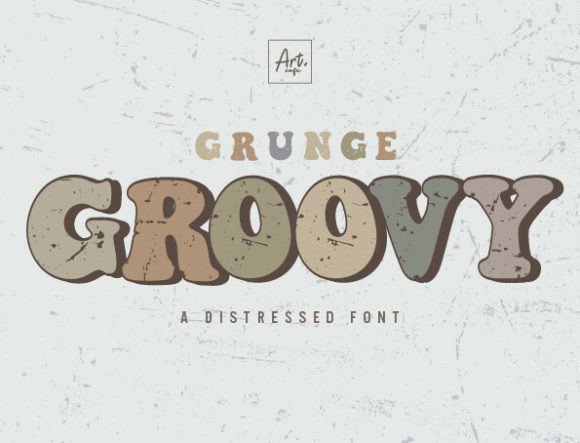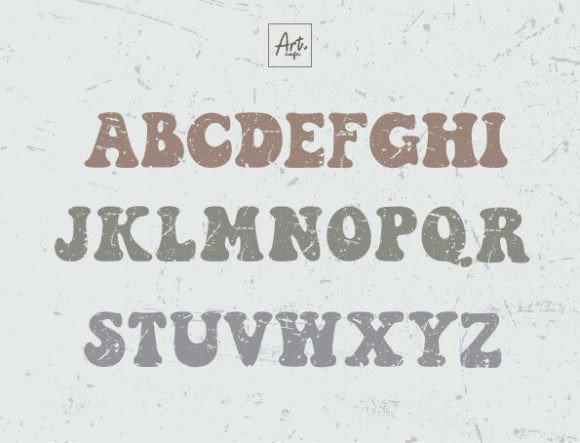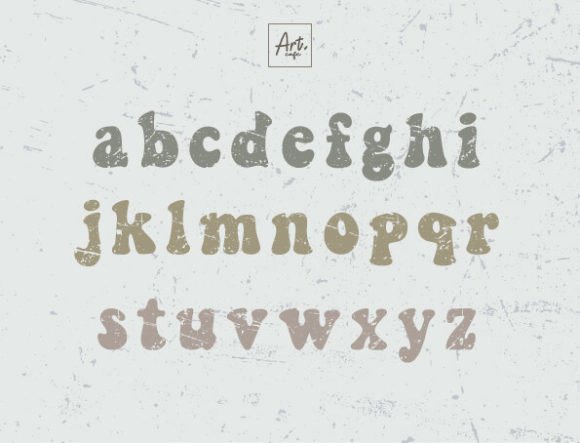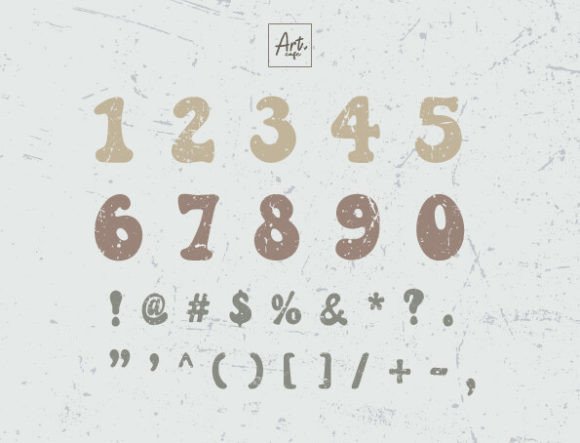
Grunge Groovy Font
About the Grunge Groovy Font
The Grunge Groovy Font offers a perfect balance of form and function for your design needs. Immerse yourself in the nostalgia of yesteryears with Grunge Groovy. This distressed font exemplifies vintage charm and retro panache, perfectly designed to infuse an edgy, groovy vibe into any design. Reinventing the aesthetic of the throwback era, Grunge Groovy is the ultimate choice for anyone seeking an artistic fusion of retro and cool.
Grunge Groovy excels in headlines, posters, and branding projects that demand a bold, retro aesthetic. Its distressed texture works particularly well for short impactful statements and adds a vintage coolness to logos and packaging designs. However, its low readability makes it unsuitable for body text or UI elements requiring extended reading.
The font’s core personality is rebellious and energetic, making it ideal for brands targeting a younger demographic or those with a vintage-inspired identity. Consider pairing it with a clean sans-serif like Open Sans for contrast and readability in supporting text, or a classic serif like Garamond for a sophisticated, vintage-modern balance.
For a more playful approach, a handwritten script font could complement Grunge Groovy’s character, while a geometric sans-serif would offer a sharp, modern counterpoint. Careful consideration of color palettes and supporting imagery is crucial to maximizing its impact.
Grunge Groovy Font Usage Examples
Grunge Groovy Font Example